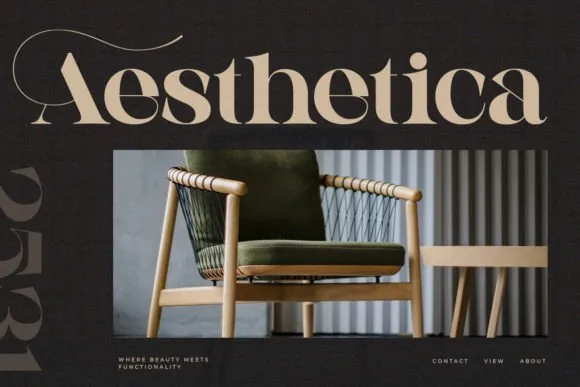
Cufatte Font
Cufatte Font is a rich serif typeface, plunges into the universe of ageless refinement with our most recent text style creation, decorated with delicate and exquisite swashes. Each letter is fastidiously created, highlighting inconspicuous and effortless twists that add a hint of extravagance to your plan projects.
Cufatte Font textual style is ideally suited for projects that require a one of a kind vibe, like banners, logos, bundling, and limited time materials that expect to catch a nostalgic and complex air. This text style will add a unique touch to your plans and enrapture watchers with its retro charm and peculiarity.